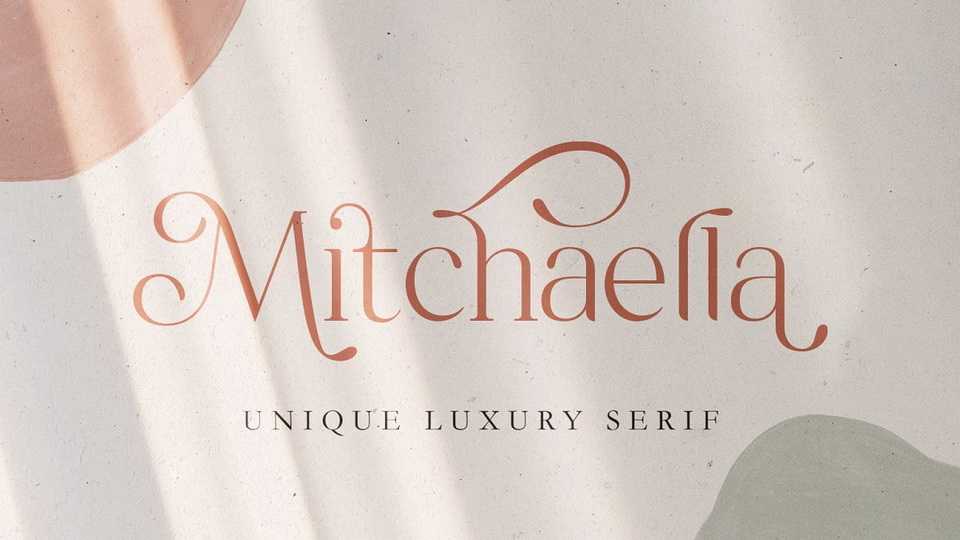
Download Mitchaella font, a modern, unique and luxury serif typeface with many decorative characters. Mitchaella is a very useful font made for branding, logos, magazine imagery, wedding invitations, posters, fashion, packaging and more.